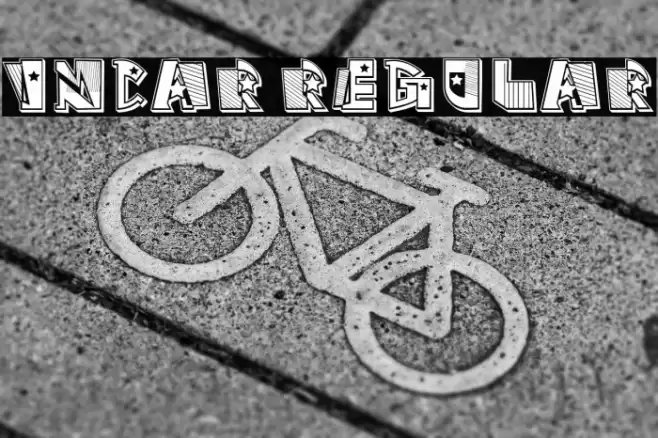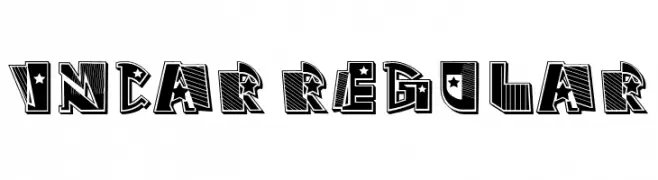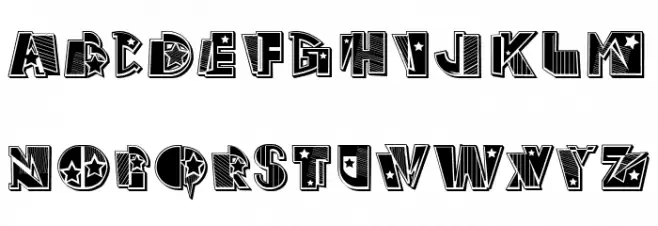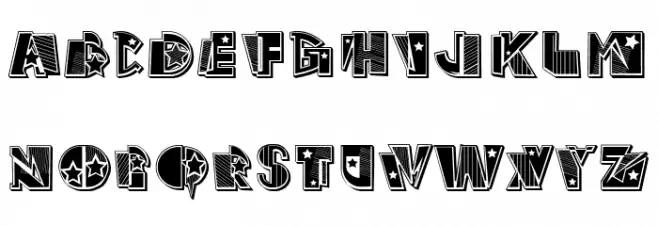
Incar Regular Font
Incar Regular Description
This font is a bold and decorative display typeface characterized by its playful and dynamic design. Each letter is uniquely styled with a combination of stars, stripes, and geometric patterns, creating a sense of movement and energy. The letters are filled with contrasting black and white elements, adding depth and visual interest. The overall aesthetic is reminiscent of retro or vintage styles, making it ideal for projects that require a fun and eye-catching look. The font's intricate details and bold presence make it suitable for headlines, posters, and other creative applications where a strong visual impact is desired.
A bold, decorative display font with stars and stripes, perfect for eye-catching designs from Decorative fonts.
- Proposed Projects: Ideal for posters, event flyers, children's book covers, and any project needing a playful, retro vibe.
- Contrast: High
- Overall Style: Vintage
- Use Case: Headlines, Posters, Creative Designs